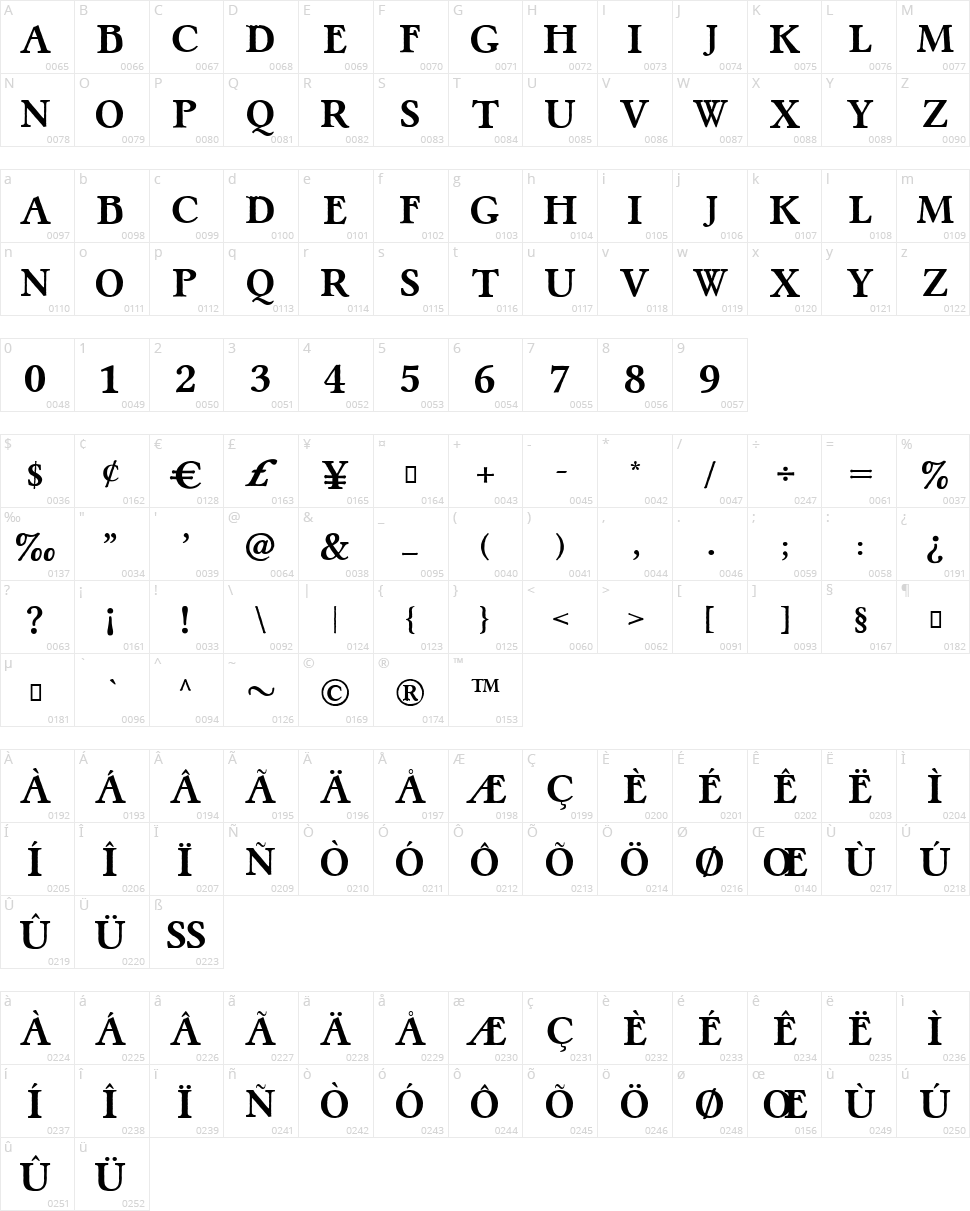
Pretzel
Pretzel Font
The Pretzel font is a rough-edged font based on a modified version of Linux Libertine Bold. Like all other JLH Fonts, this font is in the public domain, and it comes in TrueType and OpenType formats. It contains upper-case and lower-case letters, old-style figures, numbers, some punctuation characters and some mathematical symbols.